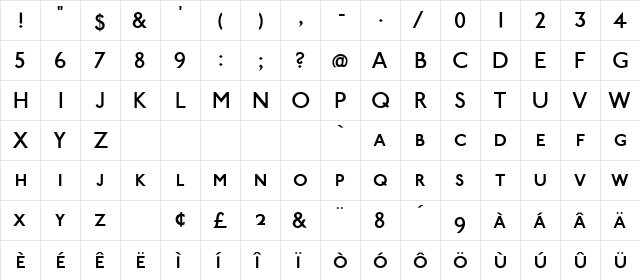
PaddingtonSC Plain Small Caps Roman
Design Context for PaddingtonSC Plain Small Caps Typeface
PaddingtonSC Plain Small Caps offers clean, dependable letterforms without strong stylistic allegiance, making it a practical choice for designers who need flexibility.